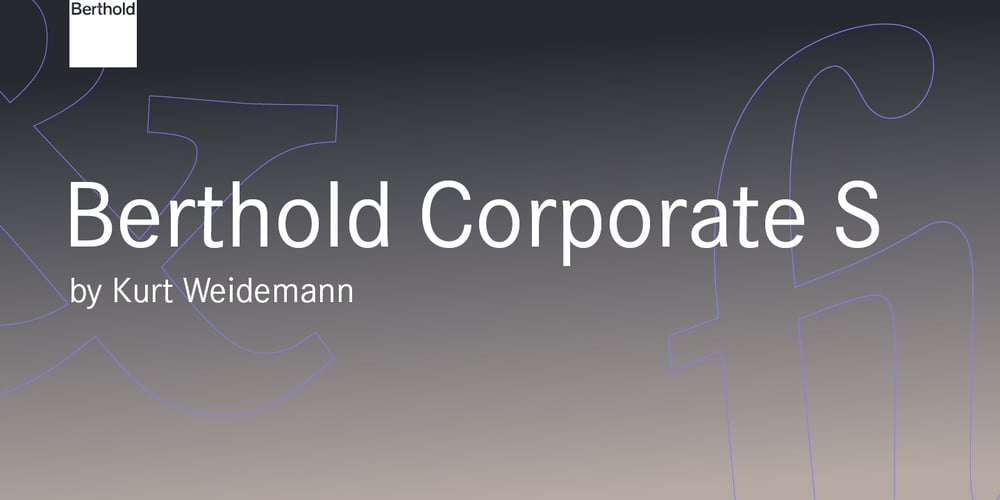
Berthold Corporate S
Berthold Corporate S font
Berthold Corporate S Font Family was designed by Kurt Weidemann and published by Berthold. Berthold Corporate S contains 10 styles and family package options. Between 1985 and 1990 Kurt Weidemann developed Corporate ASE (Antiqua, Sans and Egyptian) for Daimler-Benz AG.